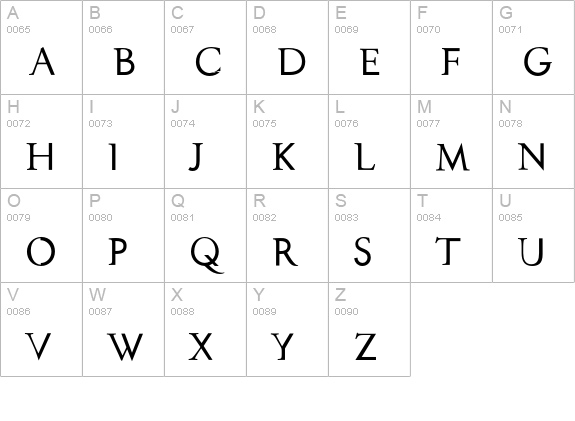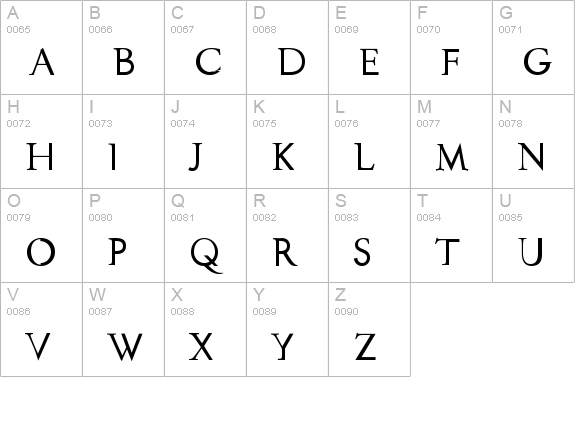
DiscordPlain Font Details
DiscordPlain font is a sleek and modern typeface that is perfect for a wide range of design projects. With its clean lines and simple yet elegant appearance, this font is sure to make your text stand out. Whether you are working on a website, logo, poster, or any other creative endeavor, DiscordPlain font will add a touch of sophistication to your work. Best of all, DiscordPlain font is completely free to download at FontsMarket.com. This means that you can access this versatile typeface without any cost, making it a valuable addition to your font collection. Don't miss out on the opportunity to enhance your designs with the stylish and professional look of DiscordPlain font – download it today and elevate your projects to the next level.